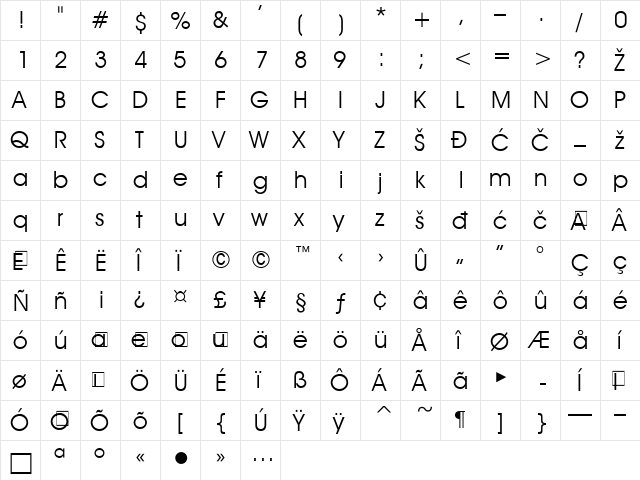
Avant Garde Light YU Regular
Design Context for Avant Garde Light YU Typeface
Avant Garde Light YU is a composed and adaptable typeface that performs quietly and consistently across a wide range of design contexts. Its slender proportions lend an understated elegance to any composition.